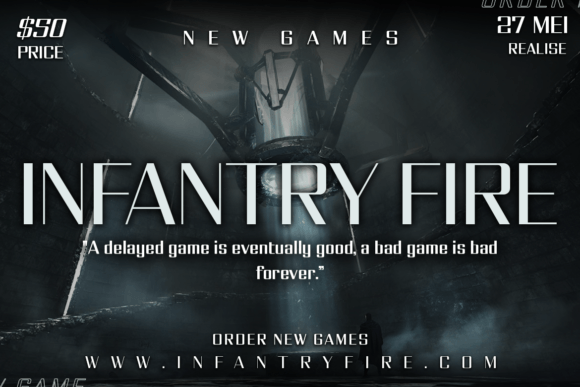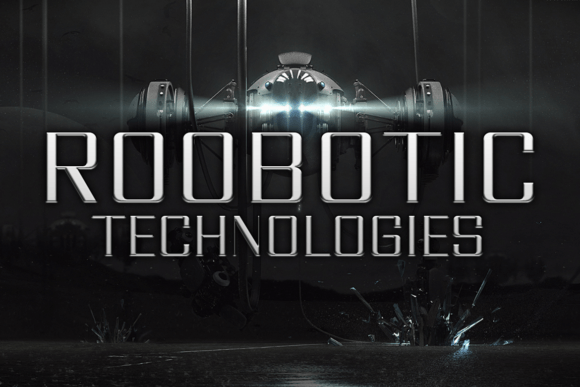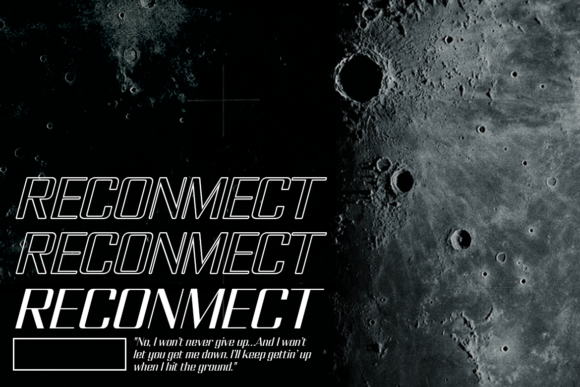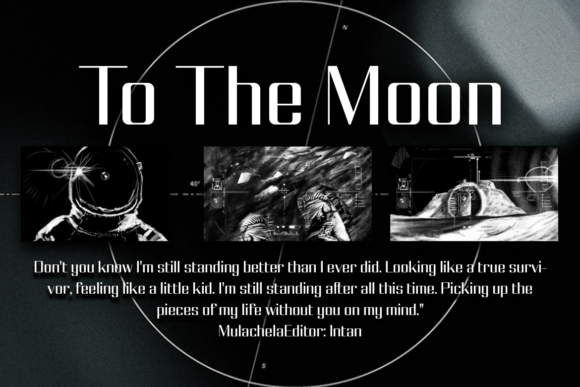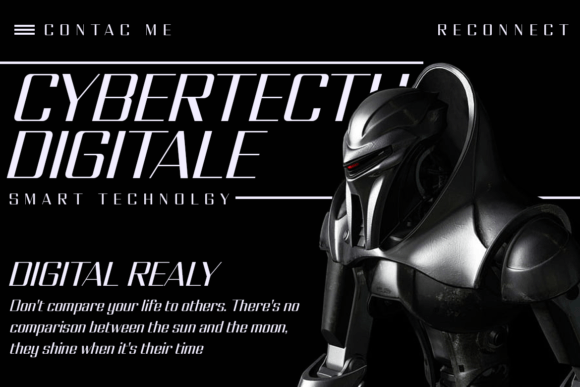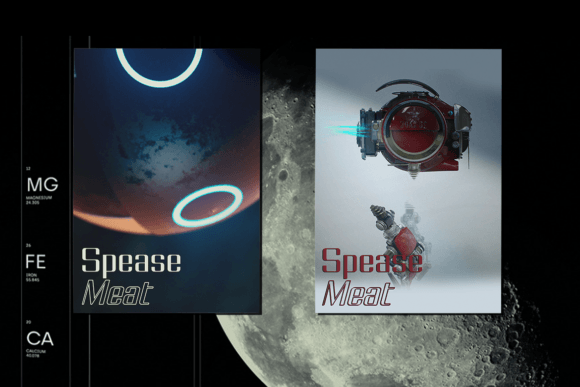
Introduction to Reconnect Font
As a designer, there’s nothing quite like the thrill of bringing a creative project to life. The moment when all the pieces come together, and your vision takes shape – it’s a feeling like no other. But, have you ever found yourself stuck in a design rut, searching for that one perfect font to elevate your typography game?
Enter the Reconnect Font, a game-changing design resource that’s about to revolutionize the way you approach typography. With its futuristic aesthetic and high-quality glyphs, this font is perfect for designers looking to create eye-catching graphics, from music flyers to movie posters. And the best part? It’s PUA encoded, making it easy to access all the amazing ligatures and glyphs you need to take your design to the next level.
Reconnect Font Key Features
- Designed with a modern aesthetic, Reconnect Font is perfect for creative projects requiring a contemporary and sophisticated look.
- Perfect for digital and print projects, including logos, branding materials, and editorial content.
Honest Review: Reconnect Font
I recently had the opportunity to work with the Reconnect Font for a creative project, and I must say it’s been a game-changer. This font is a high-quality design resource that has added a professional touch to my work.
Here are some things that work well with the Reconnect Font:
- Professional and modern look
While the Reconnect Font is an excellent choice for most design projects, there are a few limitations to consider:
- Limited character set
- Not ideal for complex typography
Overall, I’m thoroughly impressed with the Reconnect Font. It’s a valuable addition to any designer’s toolkit, and I highly recommend it for creative projects where a high-quality font is essential. ✨
Reconnect Font
Common Use Cases for Reconnect Font
The Reconnect Font is ideal for use in a variety of creative projects, including graphic design, digital art, and typography. It’s also perfect for use in presentations, documents, and other visual materials where a high-quality font is required.